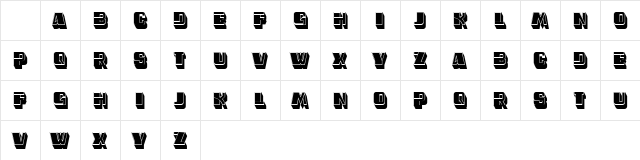
Complete Jackie Chan Regular glyph index. Displaying only characters natively supported by Jackie Chan Regular font.
Jackie Chan is a composed and adaptable typeface that performs quietly and consistently across a wide range of design contexts.